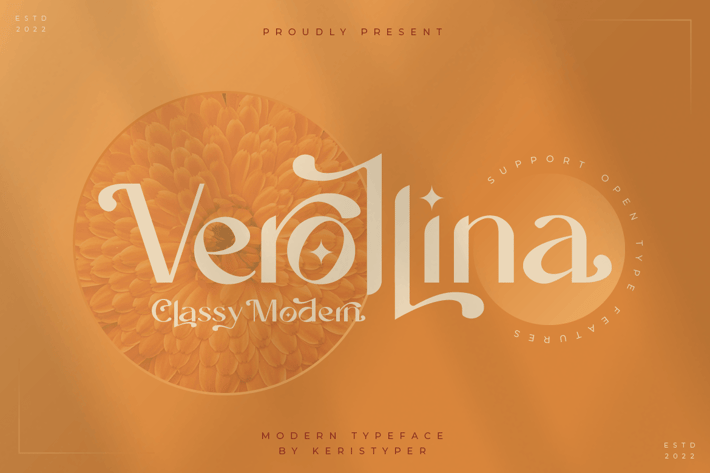
Verollina Font
introduce Verollina, It is a minimalist elegant modern vintage font. This font is good for logo design, Social media, Movie Titles, Books Titles, short text even long text letters, and good for your secondary text font with sans or serif.
Standard Uppercase & Lowercase
Multilingual : ä ö ü Ä Ö Ü ß ¿ ¡
Alternate & Ligature